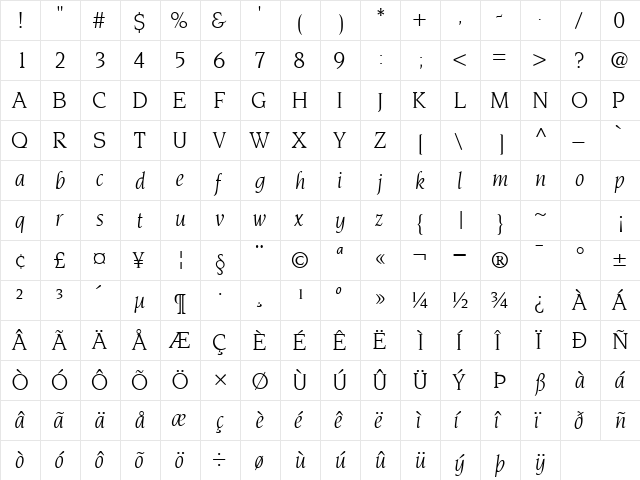
TridentSSK Italic
Design Context for TridentSSK Typeface
TridentSSK takes a measured approach to typography — its balanced proportions and neutral character make it a reliable workhorse for both digital and print work. Its italic angle brings a sense of urgency and motion to the letterforms.
Pro Tip: Try TridentSSK for annotation and caption copy alongside an upright companion — the contrast in angle creates a dynamic but ordered typographic system.